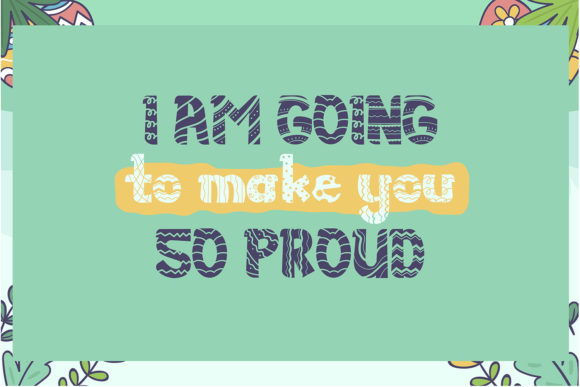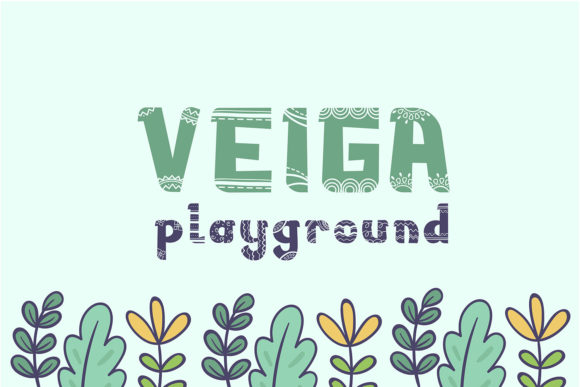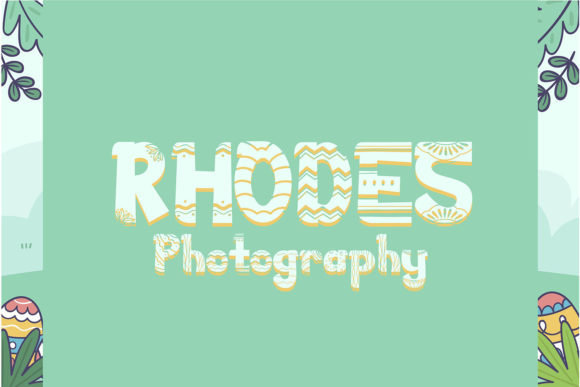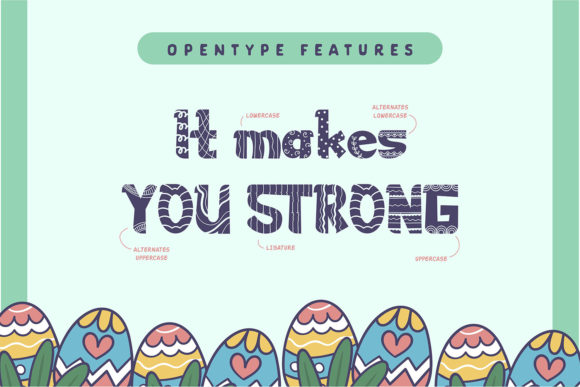
About Hidden Easter Font
Hidden Easter is a beautiful decorative font that was inspired by the spring holidays. It will look amazing on wedding invitations, greeting cards, branding materials, business cards, quotes, posters, and many more! Add it to your most creative designs to make them stand out!